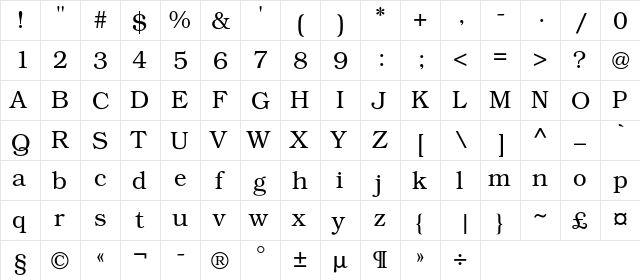
BookmanC Regular Font Preview
BookmanC Regular
Design Context for BookmanC Typeface
BookmanC takes a measured approach to typography — its balanced proportions and neutral character make it a reliable workhorse for both digital and print work.
Pro Tip: Use BookmanC in both headline and body roles to test its range before committing to a single application.